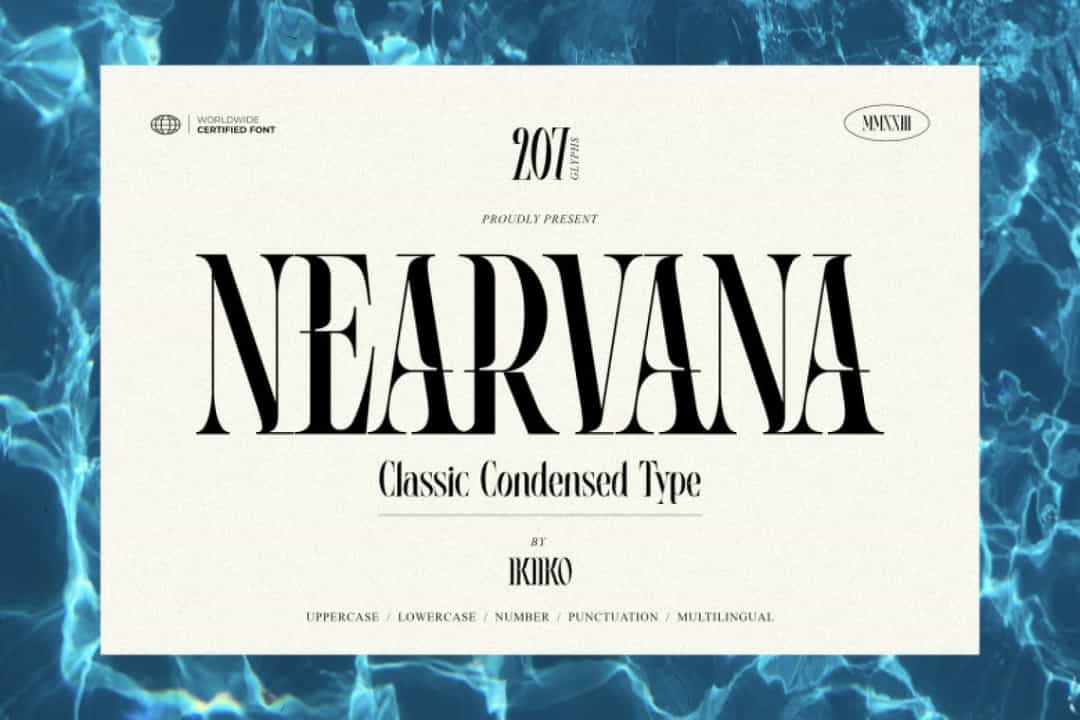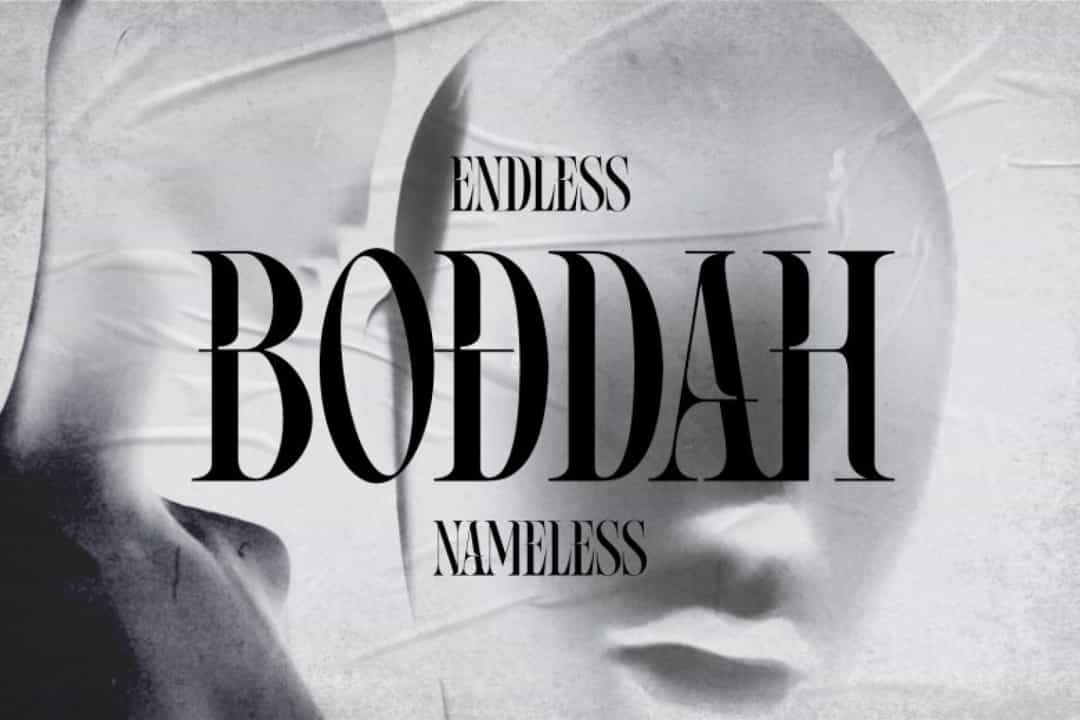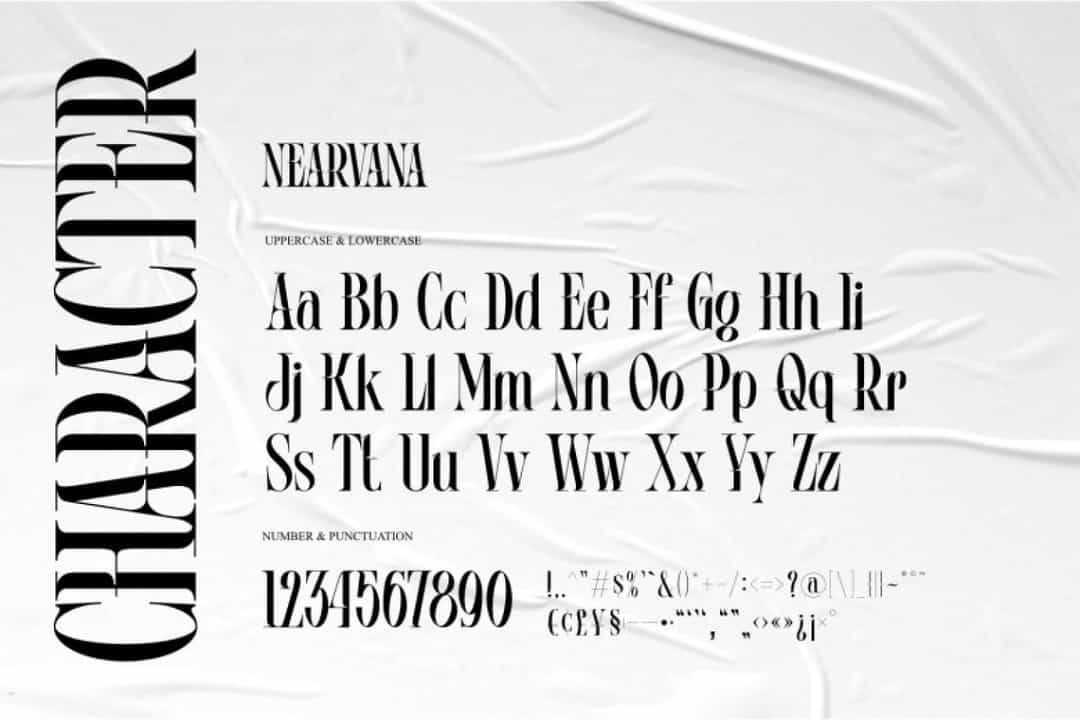
Nearvana Traditional Condensed Serif Type was created by ikiiko, drawing inspiration from Nirvana band members with their iconic logotype as source material for this condensed serif classic font family. Nearvana was designed with sleek and thin forms and crisp lines for an aesthetically appealing and sophisticated appearance.